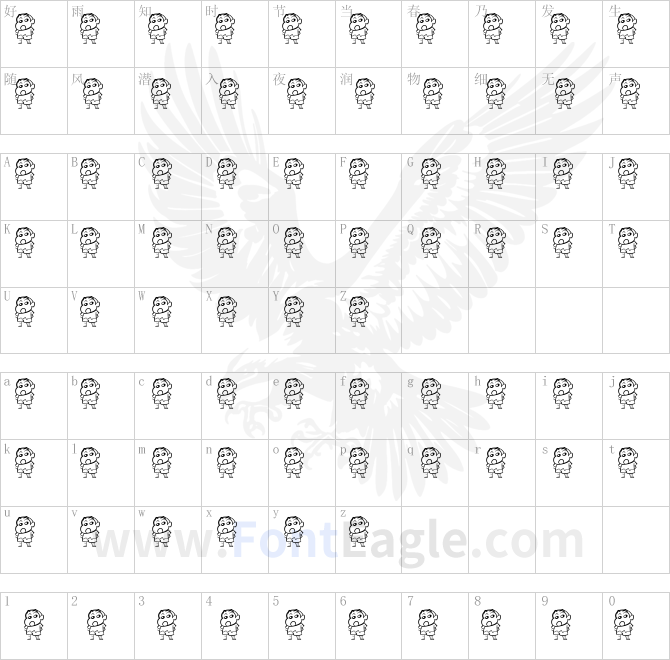
CARTOON-1994 is a great font, widely used in graphic design, single-page menu design, poster design and other fields, and is deeply loved by designers.CARTOON-1994 download.